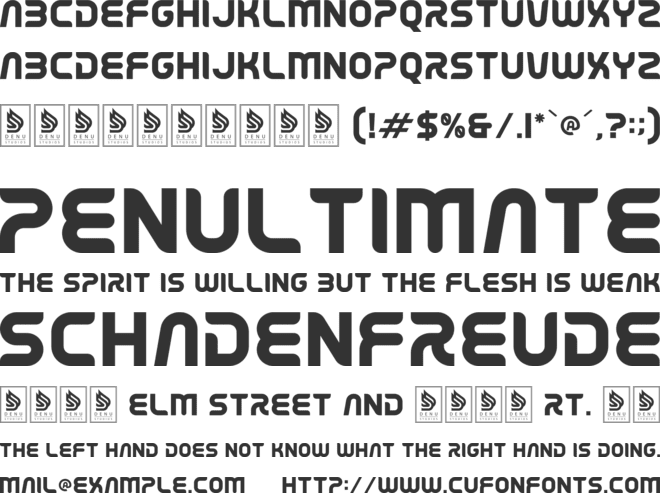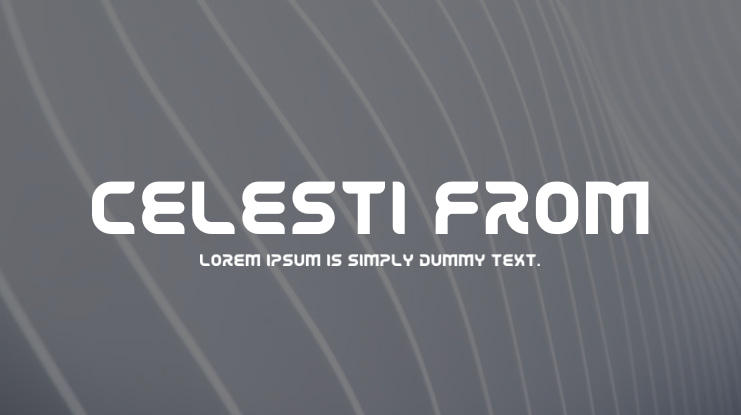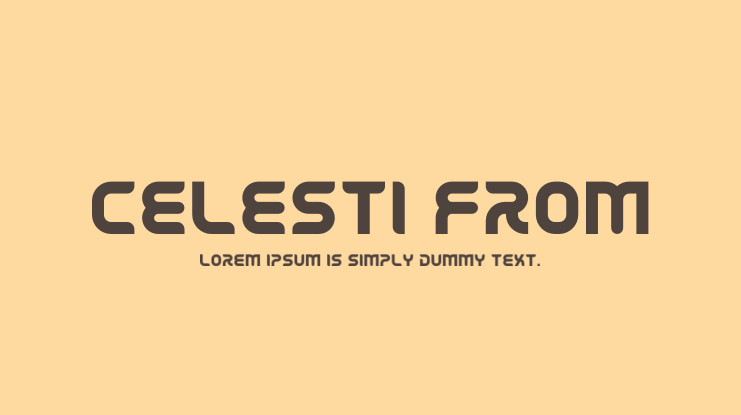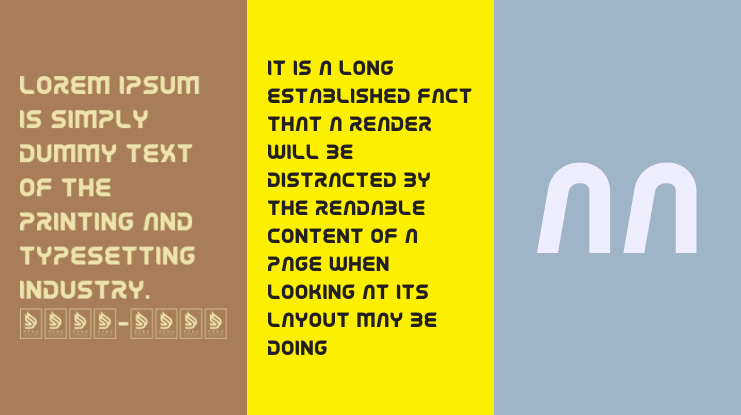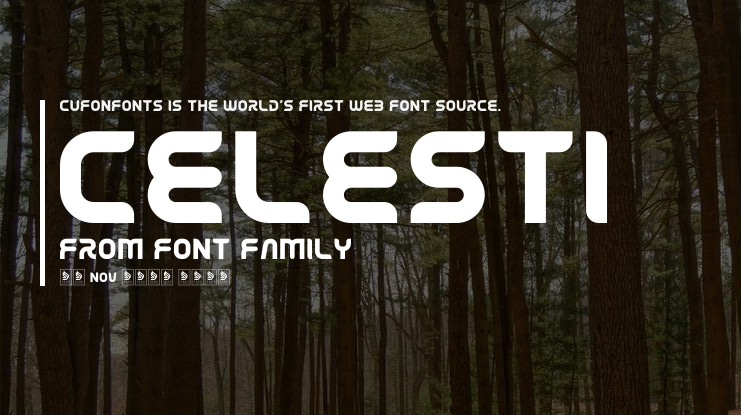
**Celesti From | Modern Futuristic Sans Serif** is suitable for any project such as logos, branding, homeware designs, product packaging, mugs, quotes, posters, shopping bags, t-shirts, book covers, name cards, invitation cards, greeting cards, labels, photography, watermarks, special events, and all your other lovely projects that need a modern futuristic sans serif touch.